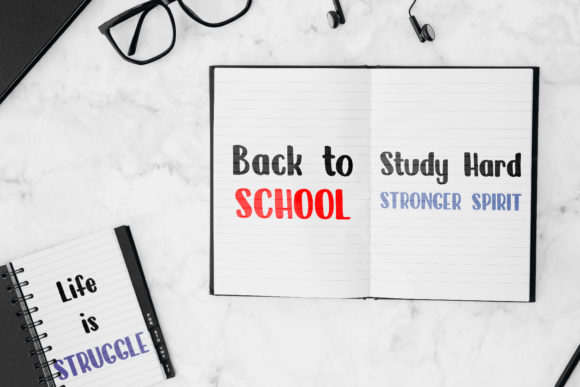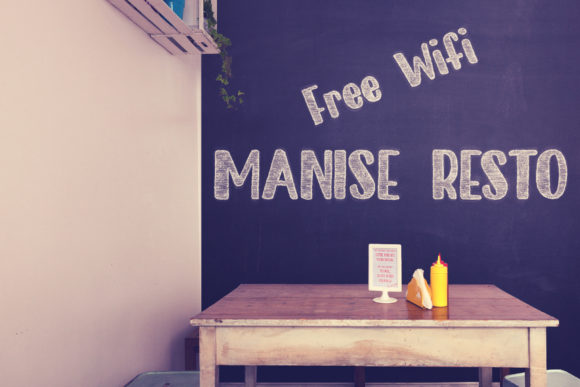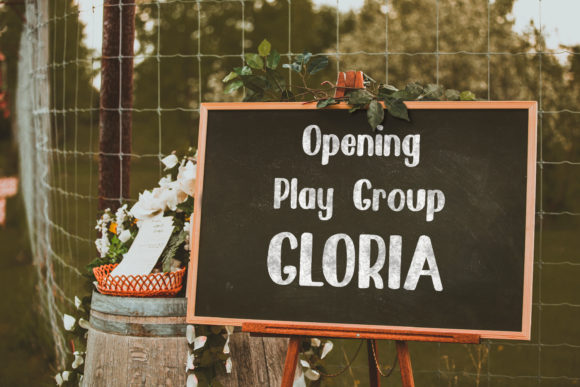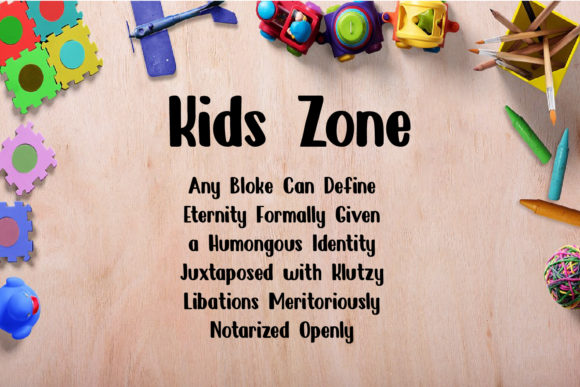
Cumils Font: Adding a Touch of Casual Charm to Your Designs
Are you looking for a font that can add a fun and cool vibe to your designs? Look no further than Cumils Font! This handwritten font is perfect for designers and crafters who want to give their projects a simple yet charming touch. In this article, we’ll dive into the world of Cumils Font and explore its features, benefits, and uses.
What is Cumils Font?
Cumils Font is a modern handwritten font that exudes a casual and laid-back feel. Its simple vibe makes it perfect for a wide range of design projects, from social media graphics to branding materials, and even craft projects like scrapbooking and card making. The font’s clean lines and effortless flow make it easy to read and visually appealing.
Features of Cumils Font
Cumils Font has several features that make it a standout in the world of typography. Some of its notable features include:
- Handwritten style: Cumils Font has a genuine handwritten look that adds a personal touch to your designs.
- Simple and clean lines: The font’s clean lines make it easy to read and versatile for various design projects.
- Casual charm: Cumils Font has a laid-back feel that’s perfect for designs that require a friendly and approachable tone.
Benefits of Using Cumils Font
Using Cumils Font in your designs can bring several benefits, including:
- Uniqueness: Cumils Font’s handwritten style sets it apart from more traditional fonts, giving your designs a distinctive look.
- Versatility: The font’s simple vibe makes it suitable for a wide range of design projects, from digital to print.
- Emotional connection: Cumils Font’s casual charm can help create an emotional connection with your audience, making your designs more relatable and engaging.
Uses of Cumils Font
Cumils Font is a versatile font that can be used in various design projects, including:
- Social media graphics: Add a personal touch to your social media posts and stories with Cumils Font.
- Branding materials: Use Cumils Font to create a friendly and approachable brand identity.
- Craft projects: Cumils Font is perfect for scrapbooking, card making, and other paper crafts.
- Digital products: Use Cumils Font in your digital products, such as ebooks, presentations, and more.
Tips for Using Cumils Font
To get the most out of Cumils Font, here are some tips to keep in mind:
- Pair with contrasting fonts: Pair Cumils Font with a contrasting font to create visual interest and hierarchy.
- Use for headings and titles: Cumils Font is perfect for headings and titles, adding a touch of personality to your designs.
- Experiment with colors: Try out different colors to find the perfect match for your design and brand.
Cumils Font is a fun and cool handwritten font that can add a touch of casual charm to your designs. Its simple vibe makes it versatile and easy to use, perfect for designers and crafters alike. With its unique features, benefits, and uses, Cumils Font is a great addition to any design project. So why not give it a try and see how it can elevate your designs?
Get inspired by Cumils Font’s casual charm and take your designs to the next level!